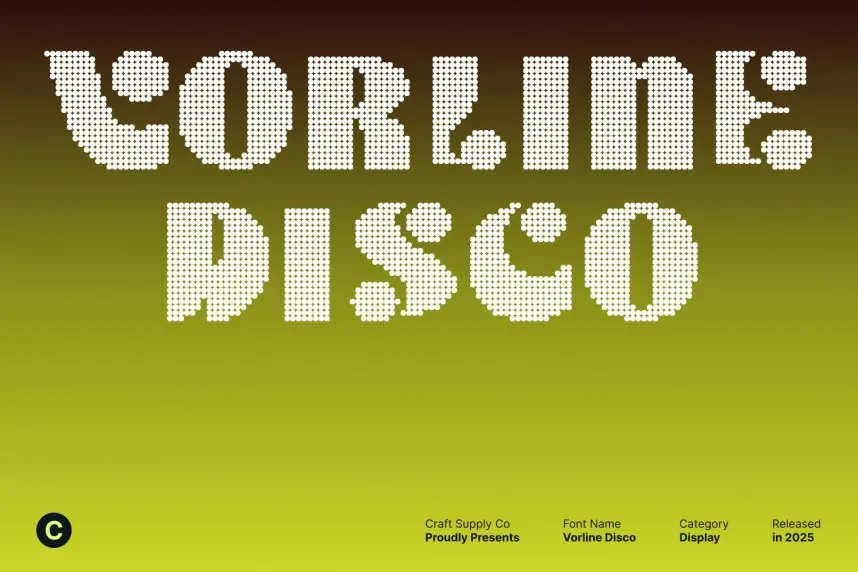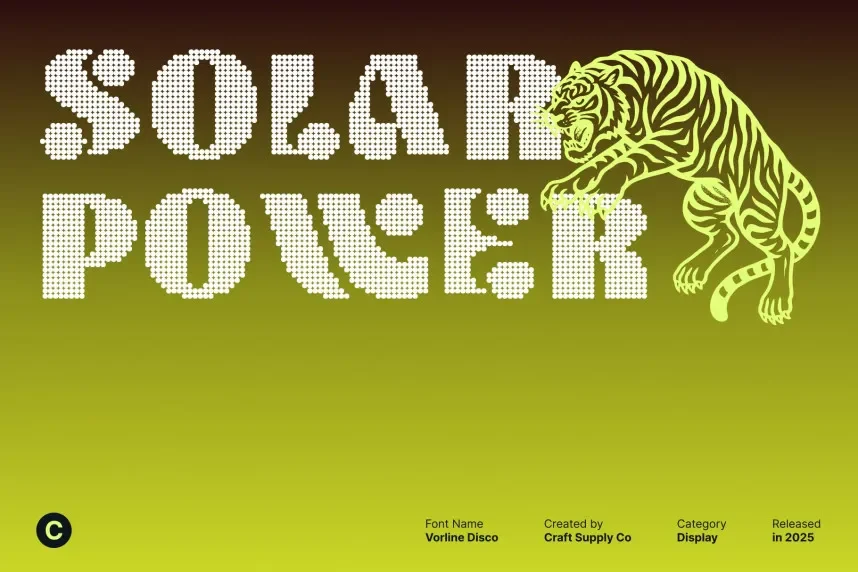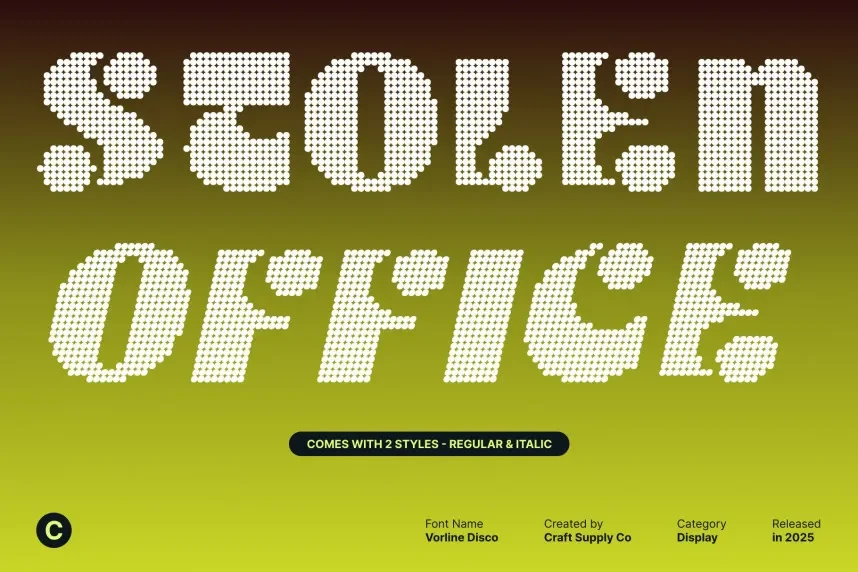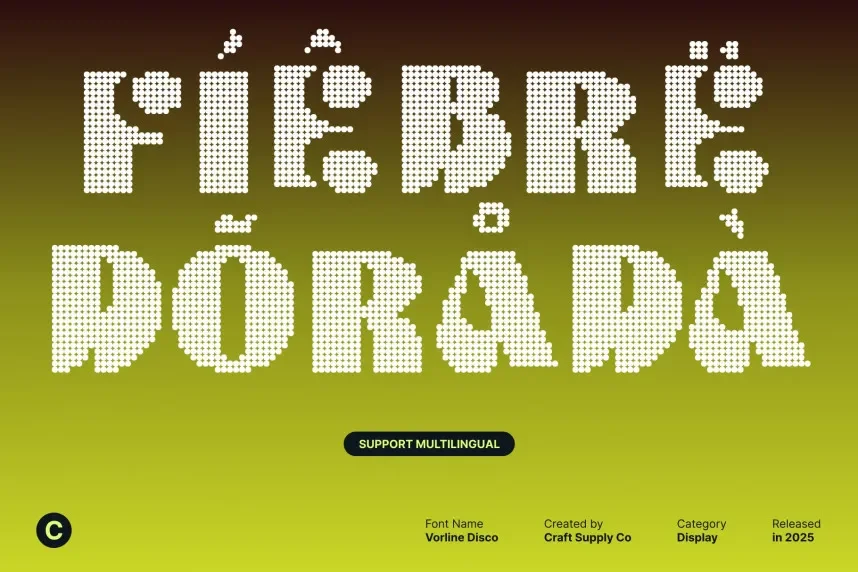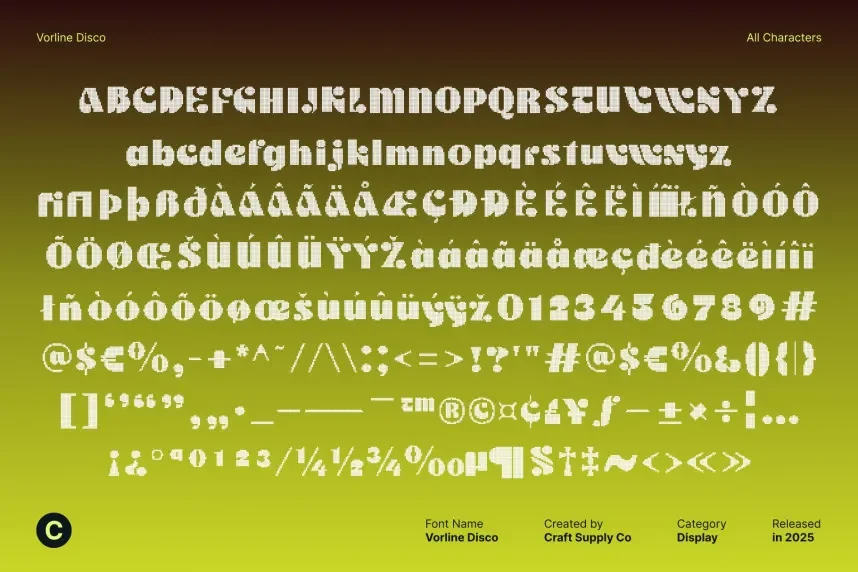
Vorline Disco Font is a display typeface designed to maintain strong readability in bold, decorative layouts. It addresses common problems in retro-style fonts, such as uneven spacing and unclear character shapes in logos and posters.
This font features consistent stroke thickness, rounded edges, and geometric letter construction. The design supports visual balance while delivering a clear disco-inspired aesthetic. Vorline Disco Font works best at medium to large sizes where its structure remains crisp.